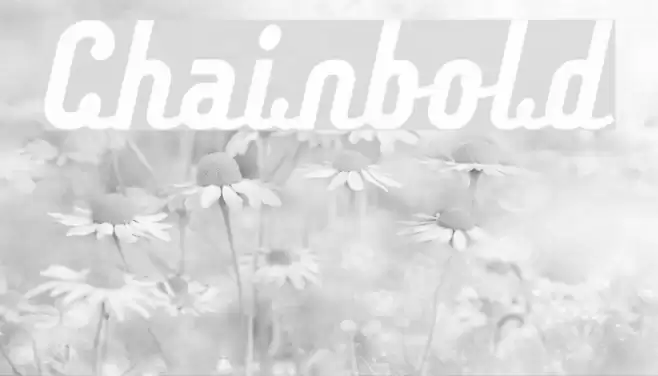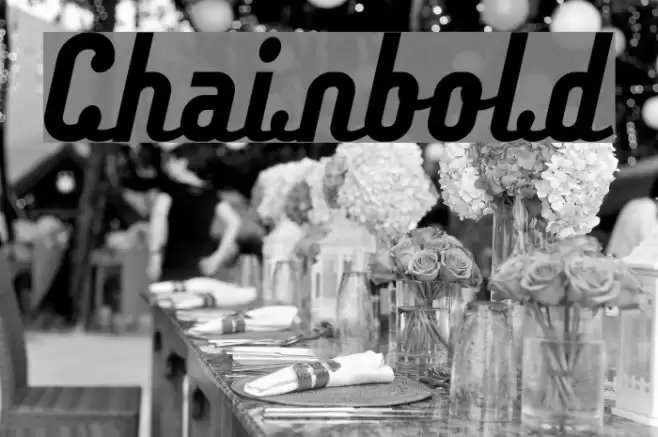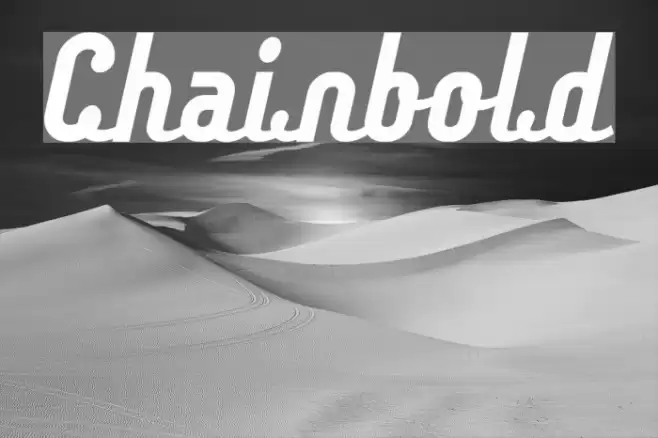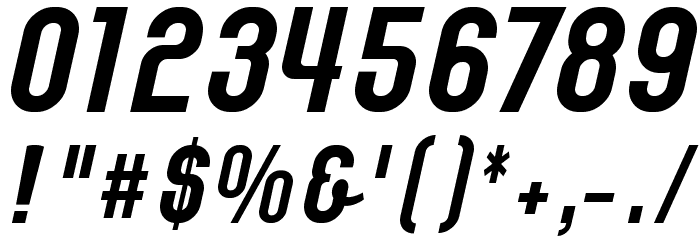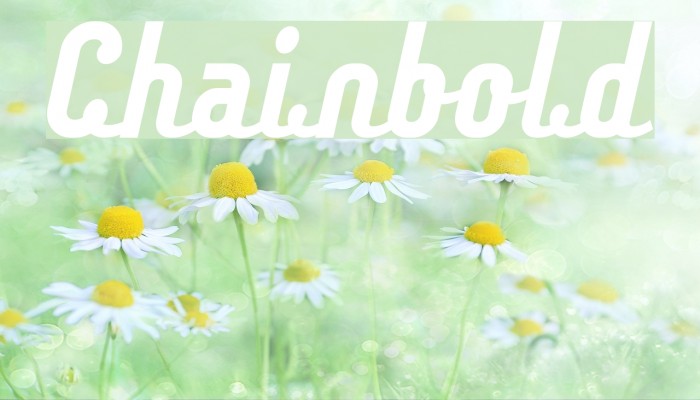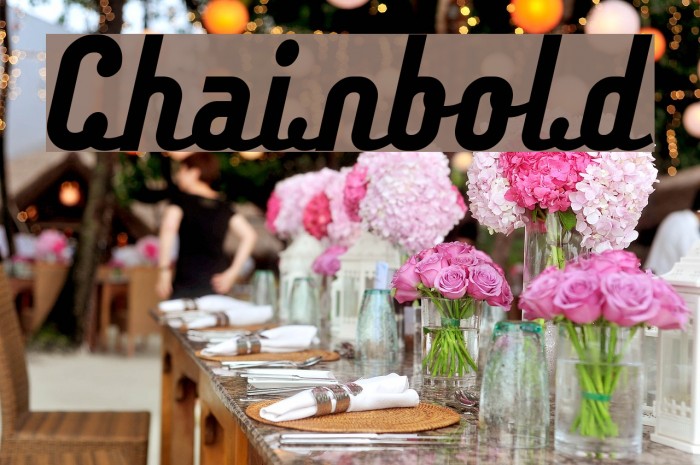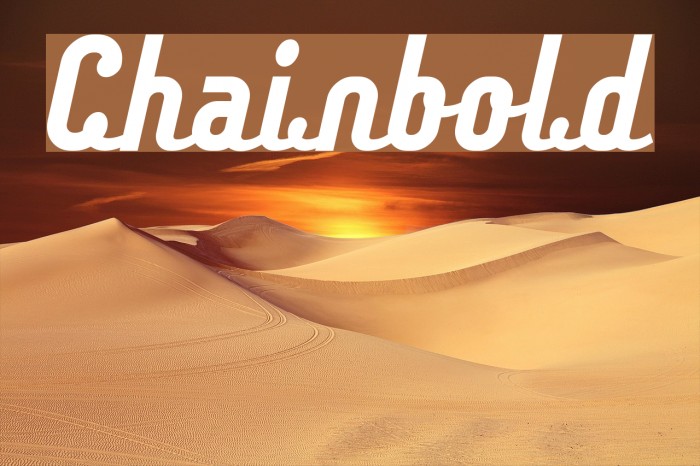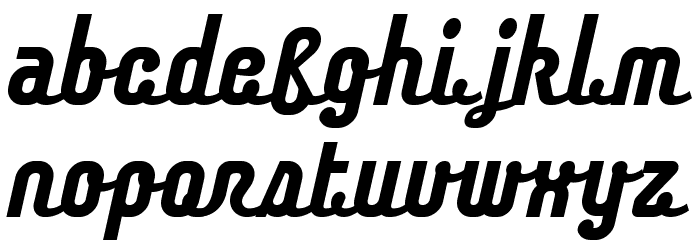
Chainbold Font
Chainbold Description
This font features a bold and dynamic script style with a modern twist. The characters are interconnected, creating a fluid and continuous flow that enhances readability while maintaining a stylish appearance. The uppercase letters are slightly taller and more pronounced, adding a sense of authority and presence. Lowercase letters maintain a consistent height, contributing to the font's cohesive look. The numbers are clear and bold, ensuring they stand out in any context. Special characters are designed to blend seamlessly with the overall style, offering versatility for various uses.
A bold, modern script font with interconnected characters and a dynamic flow from Uncategorized fonts.
- Proposed Projects: Ideal for branding, logo design, signage, and headlines where a bold and stylish statement is needed.
- Use Case: Headlines, Logos, Branding